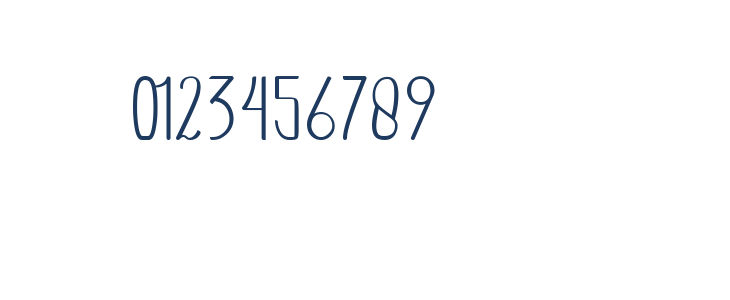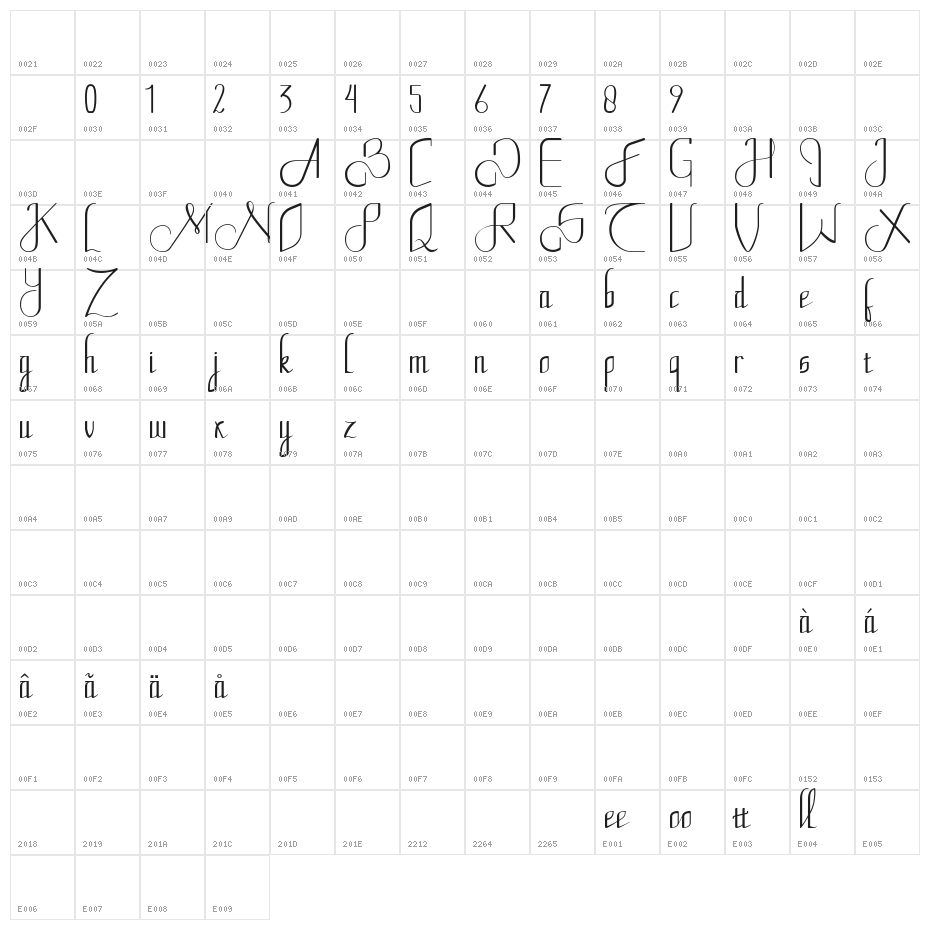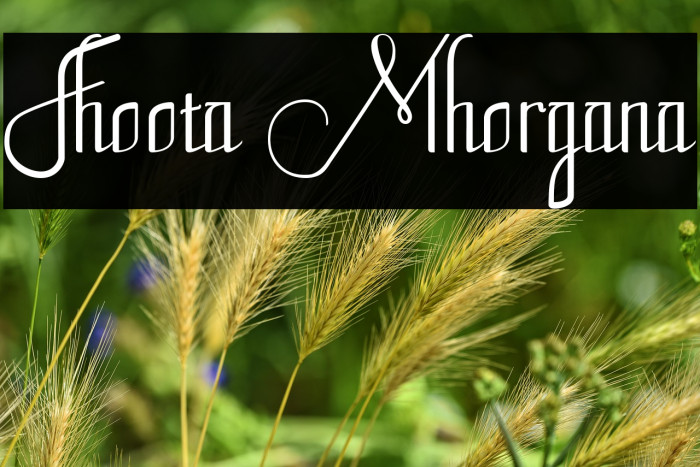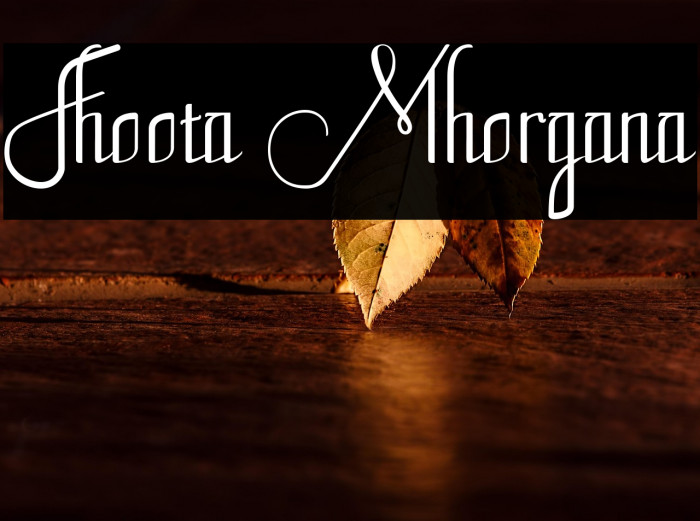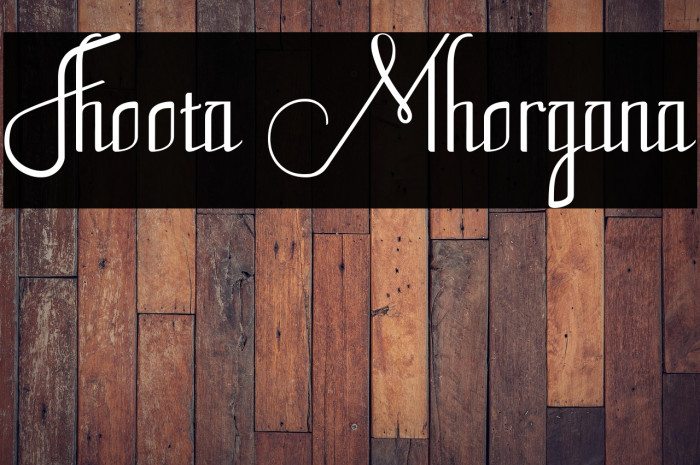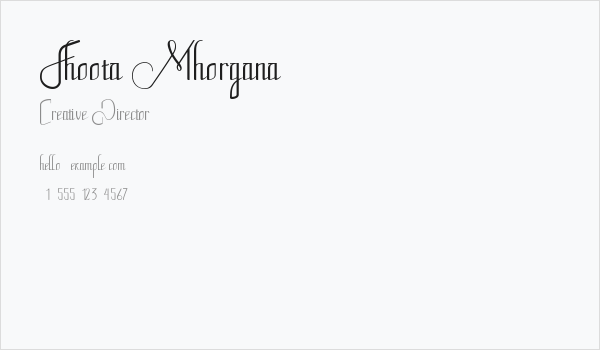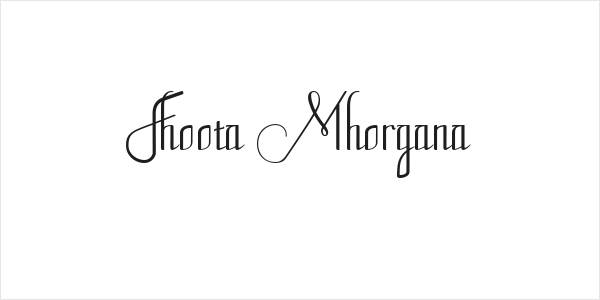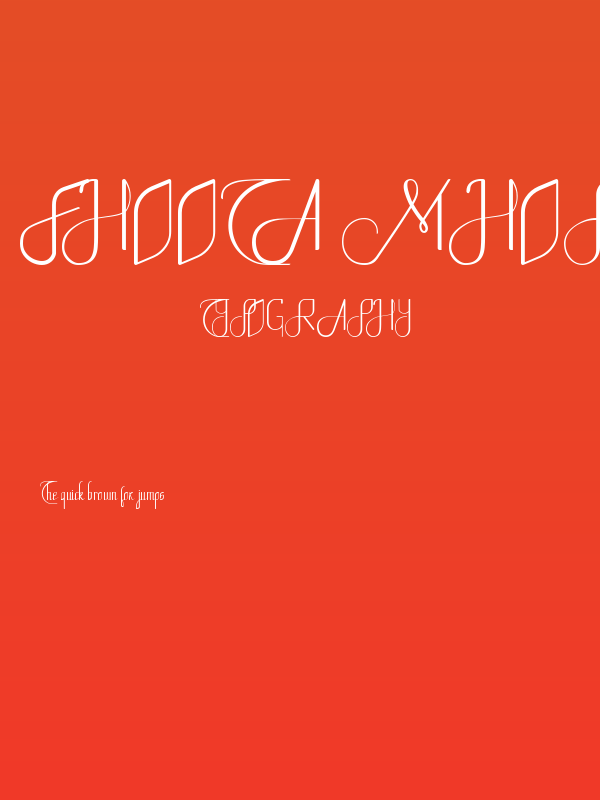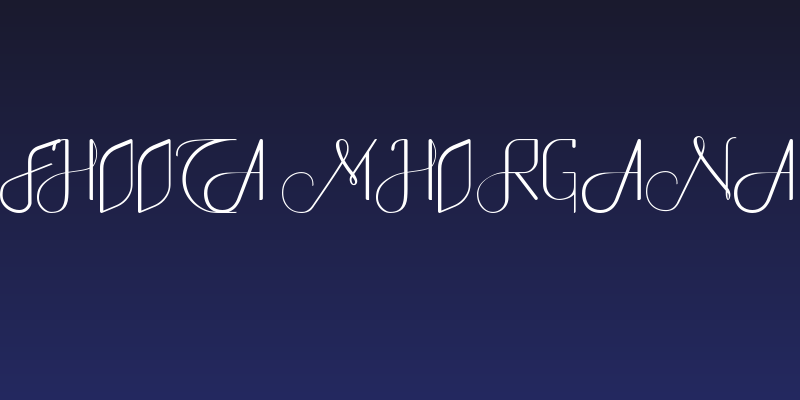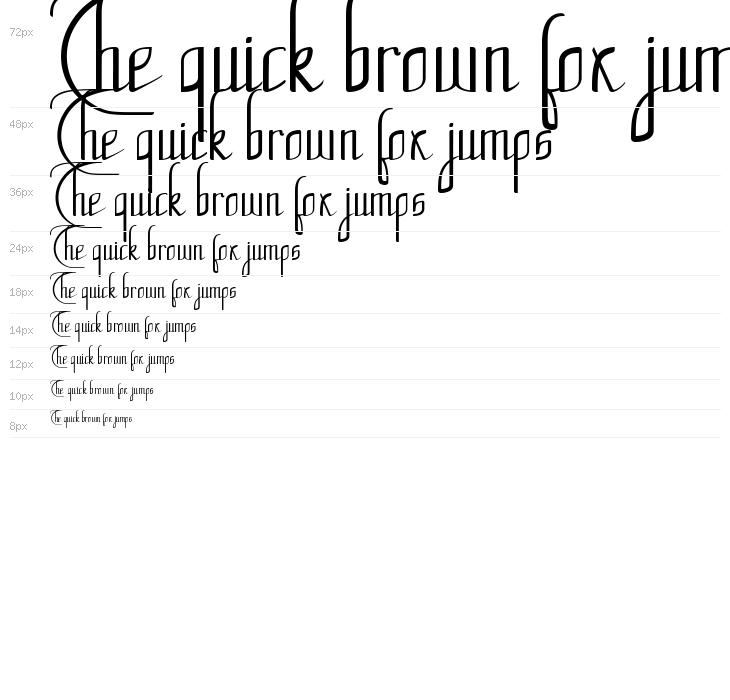
Fhoota Mhorgana Font
Fhoota Mhorgana Description
This font features a unique and artistic design with a blend of elegance and modernity. The uppercase letters are characterized by intricate loops and curves, giving them a decorative flair. The lowercase letters maintain a more straightforward yet stylish appearance, with a slight slant that adds dynamism. The numerals are clean and consistent, complementing the overall aesthetic. The special characters are thoughtfully designed to match the font's artistic theme, making it suitable for creative projects.